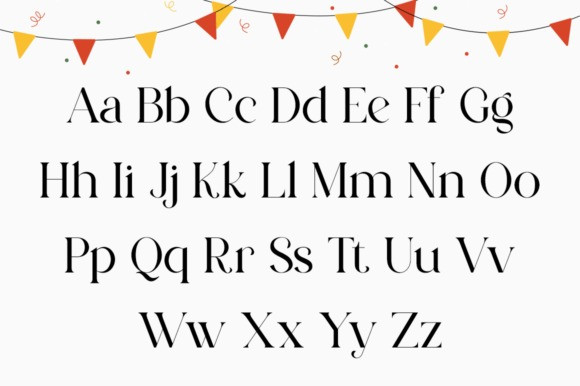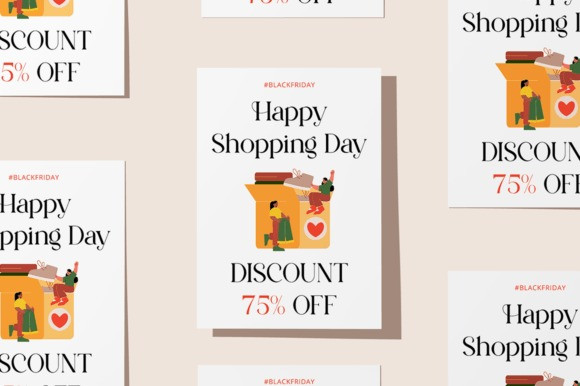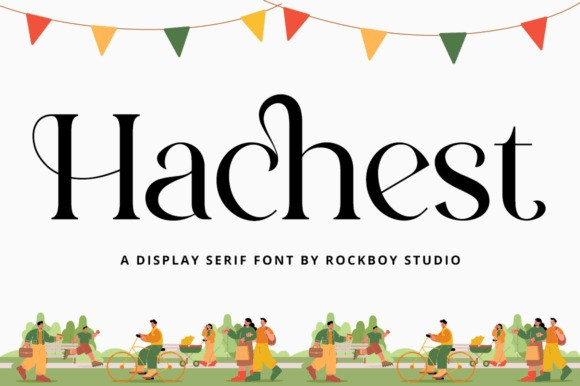
Hachest Font
Hachest Serif Font is an elegant, thin-lettered, and distinct serif font. Suitable for a wide variety of designs due to its neat and clean style, this font has the potential to become your favorite go-to font, no matter the occasion!